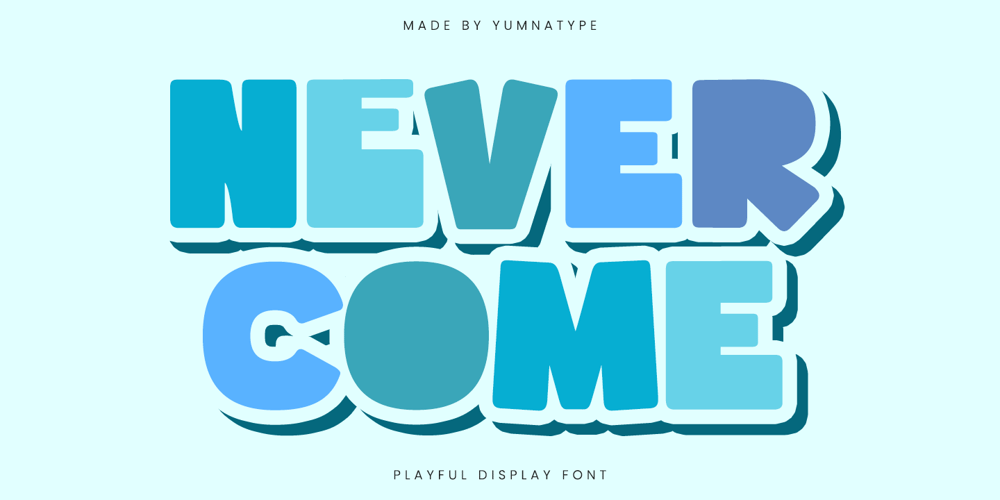
Never Come
Never Come font
Never Come Font Family was designed by Donis Miftahudin and published by Yumna Type. Never Come contains 1 styles and family package options. Never Come is a vibrant and playful display font that radiates joy and energy. Its very thick weight and low contrast create a bold presence. On the other side, the rounded shapes soften its impact, adding a friendly and approachable feel. In addition, enjoy the features here.Features: Alternates Multilingual Supports PUA Encoded Numerals and Punctuations Never Come fits in headlines, logos, posters, flyers, branding materials, print media, editorial layouts, and many more designs. Find out more ways to use this font by taking a look at the font preview.Thanks for purchasing our fonts. Hopefully, you have a great time using our font. Feel free to contact us anytime for further information or when you have trouble with the font. Thanks a lot and happy designing.